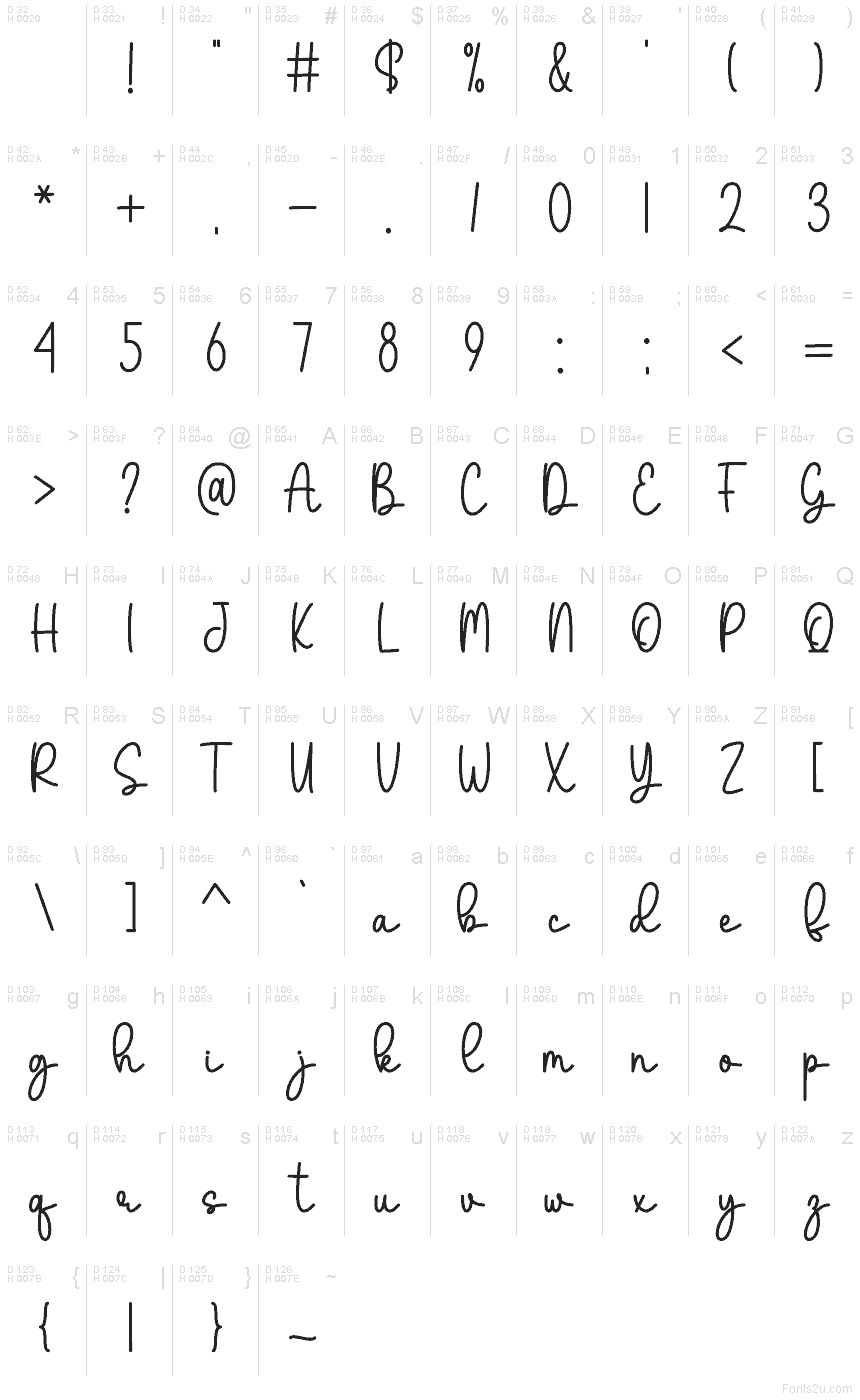
Mushrom
Mushrom font by DN Creative is a casual handwritten font with a signature-like design. Channeling casual elegance and approachability, the modern display typeface turns heads elegantly with every stroke and curve for an authentic understated effect. And although fonts can only do so much, this one enables users to say what cannot be said!